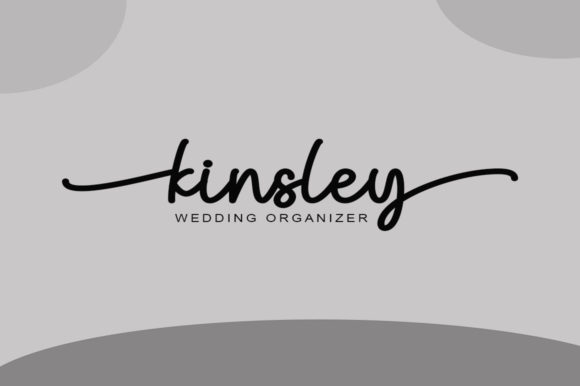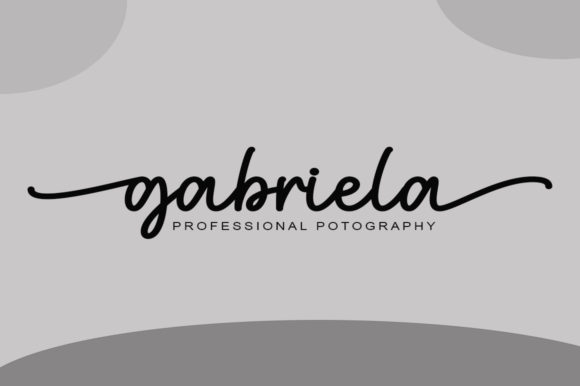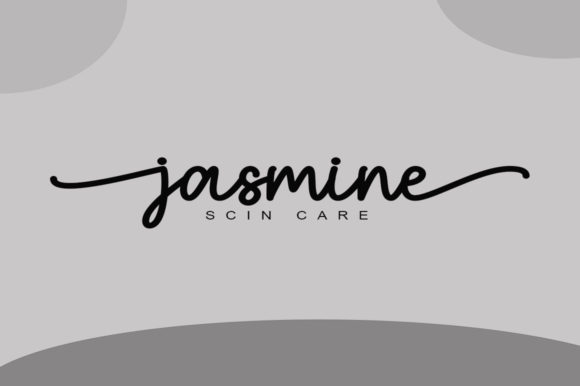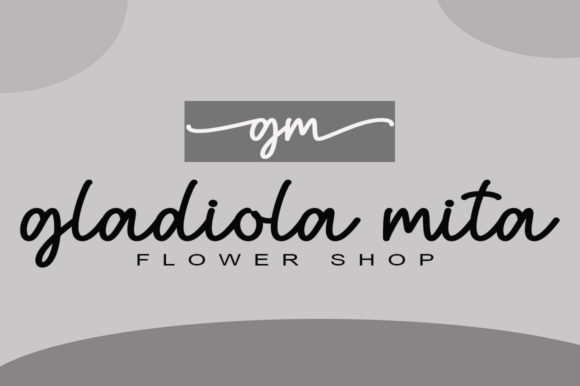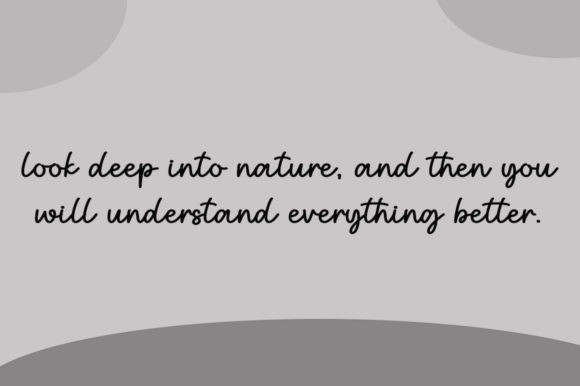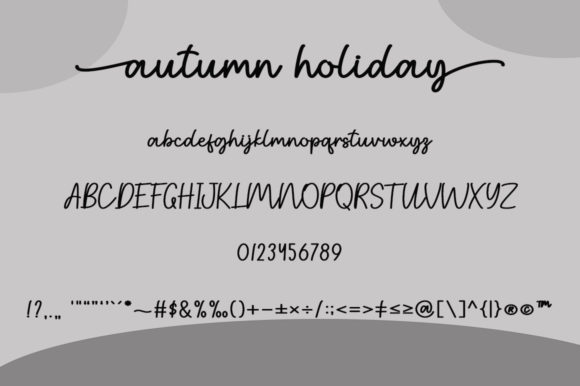
The Perfect Font for Cozy Autumn Vibes
There’s something magical about curling up with a warm cup of coffee on a crisp autumn morning, surrounded by the vibrant colors of fallen leaves. It’s a moment that sparks creativity and inspires new ideas. And what better way to capture the essence of this cozy season than with the perfect font?
Enter the Autumn Holiday Font, an elegant script font designed to enhance the beauty of your projects. With its balanced and varied strokes, this font is perfect for adding a touch of warmth and sophistication to your designs. Whether you’re working on a holiday card, a blog post, or a social media graphic, the Autumn Holiday Font is sure to make your projects stand out. Plus, with its PUA encoding, you can easily access all of the glyphs and swashes to add even more flair.
Autumn Holiday Font Key Features
- Unique Characteristics: Autumn Holiday Font features a unique blend of handwritten and serif styles, creating a warm and inviting aesthetic.
Designer Review: Autumn Holiday Font
First off, I want to say that I really enjoy the warm and cozy vibe of the Autumn Holiday Font. The ✨ unique blend of handwritten and script styles ✨ makes it perfect for creating a sense of nostalgia and whimsy in your designs. The font’s organic feel and subtle imperfections add to its charm.
One of the things that stands out about this font is its versatility. You can use it to create a wide range of designs, from invitations and greeting cards to branding and marketing materials. The font’s flexibility and adaptability make it a great choice for designers who want to add a personal touch to their projects.
- ✨ Unique blend of handwritten and script styles
- ✨ Warm and cozy vibe
- ✨ Organic feel and subtle imperfections
- ✨ Versatility in design applications
- ⚠️ Limited character set (may not be suitable for extensive text-based projects)
- ⚠️ May require additional styling to achieve optimal readability
Overall, I would say that the Autumn Holiday Font is a great choice for designers who want to add a touch of warmth and personality to their projects. While it may have some limitations, its unique style and versatility make it a valuable addition to any designer’s toolkit.
Tips for Getting the Most Out of the Autumn Holiday Font
Use the Autumn Holiday Font to create a cozy and inviting atmosphere for your designs. Consider pairing it with warm colors and autumnal imagery to enhance the seasonal theme.
The Autumn Holiday Font is perfect for:
- Seasonal greeting cards and invitations
- Autumn-themed posters and flyers
- Cozy home decor and gift label designs